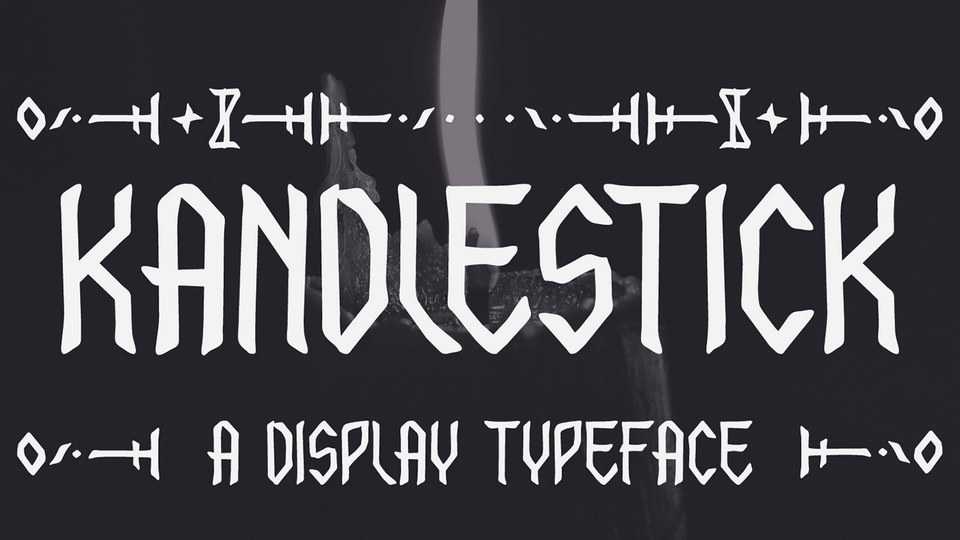
Download Kandlestick font, a hand lettered display typeface inspired by a textura blackletter design. With it’s geometric, yet soft and warm look Kandlestick is perfect for variety of projects.